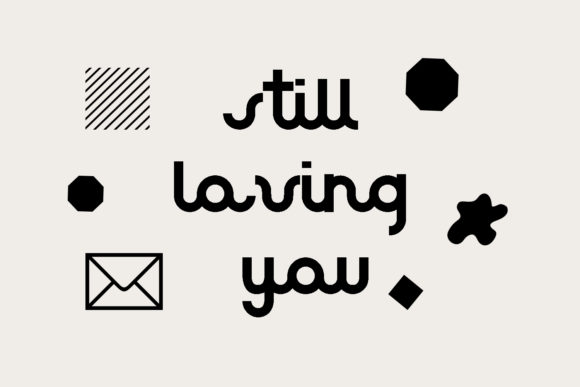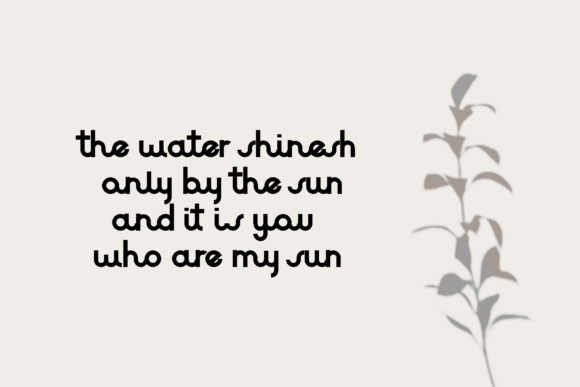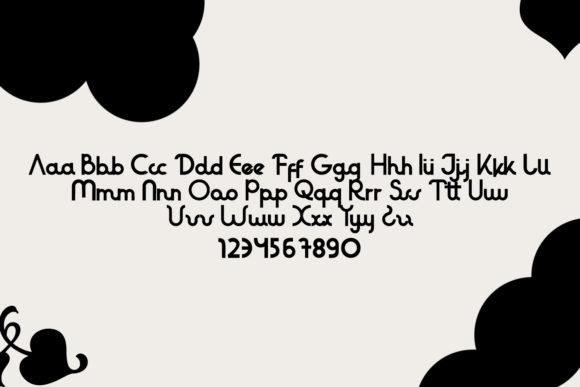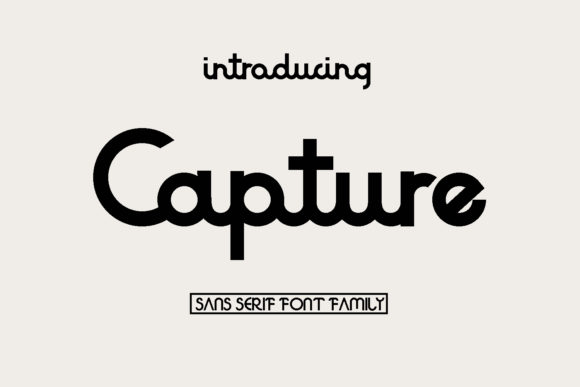
Introducing Capture Font: The Playful and Cute Monoline Sans Serif Font
Are you a designer or crafter looking for a font that can elevate your design ideas to the next level? Look no further than Capture Font, a playful and cute monoline sans serif font that is sure to turn any design into an outstanding piece of art. With its unique and stylish design, Capture Font is the perfect choice for anyone looking to add a touch of personality and flair to their work.
What is Capture Font?
Capture Font is a monoline sans serif font that is characterized by its clean and simple lines. The font is designed to be highly versatile and can be used for a wide range of design projects, from logos and branding to social media graphics and craft projects. Its playful and cute design makes it perfect for designers and crafters who want to add a touch of whimsy and fun to their work.
Key Features of Capture Font
So, what makes Capture Font so special? Here are just a few of its key features:
- Playful and Cute Design: Capture Font has a unique and playful design that is sure to capture the attention of your audience. Its cute and charming appearance makes it perfect for designers and crafters who want to add a touch of personality to their work.
- Monoline Sans Serif: The font is designed with a monoline sans serif style, which gives it a clean and simple appearance. This makes it highly versatile and easy to read.
- Highly Versatile: Capture Font can be used for a wide range of design projects, from logos and branding to social media graphics and craft projects.
Design Ideas Using Capture Font
Capture Font is a highly versatile font that can be used for a wide range of design projects. Here are just a few ideas to get you started:
- Logos and Branding: Use Capture Font to create a unique and memorable logo for your business or brand.
- Social Media Graphics: Use the font to create eye-catching social media graphics that will help you stand out from the crowd.
- Craft Projects: Use Capture Font to add a touch of personality to your craft projects, such as handmade cards and gift tags.
- Invitations and Party Decor: Use the font to create custom invitations and party decor that will make your event stand out.
Why Choose Capture Font?
So, why should you choose Capture Font for your design projects? Here are just a few reasons:
- Unique and Playful Design: Capture Font has a unique and playful design that is sure to capture the attention of your audience.
- Highly Versatile: The font is highly versatile and can be used for a wide range of design projects.
In conclusion, Capture Font is a playful and cute monoline sans serif font that is perfect for designers and crafters who want to add a touch of personality and flair to their work. With its unique and stylish design, Capture Font is sure to turn any design idea into an outstanding piece of art. Whether you’re looking to create a logo, social media graphics, or craft projects, Capture Font is the perfect choice. So why wait? Download Capture Font today and start creating!